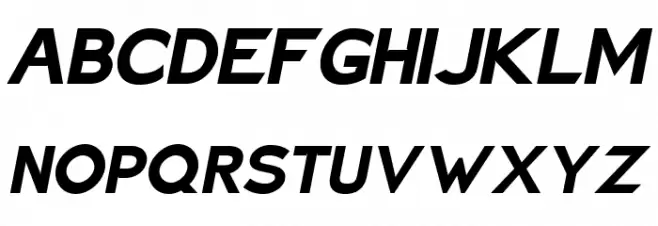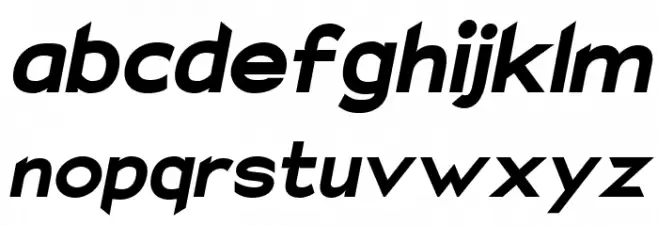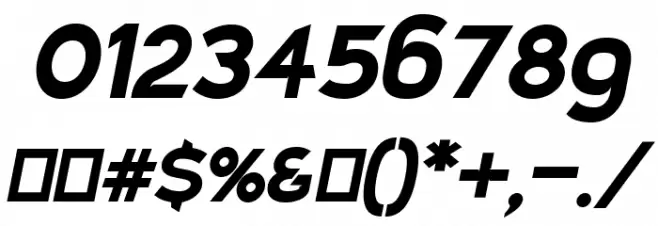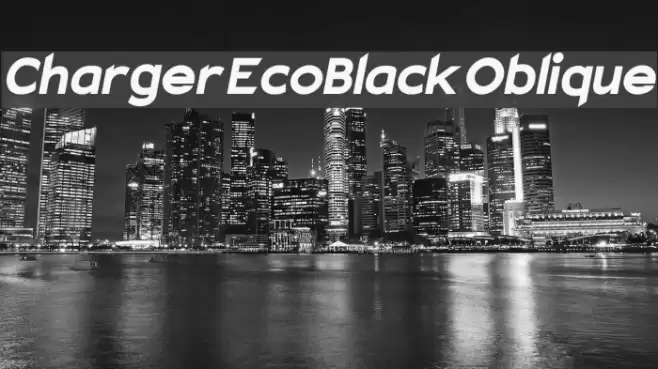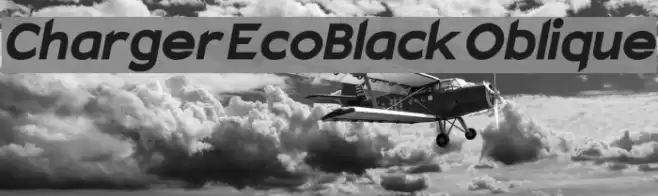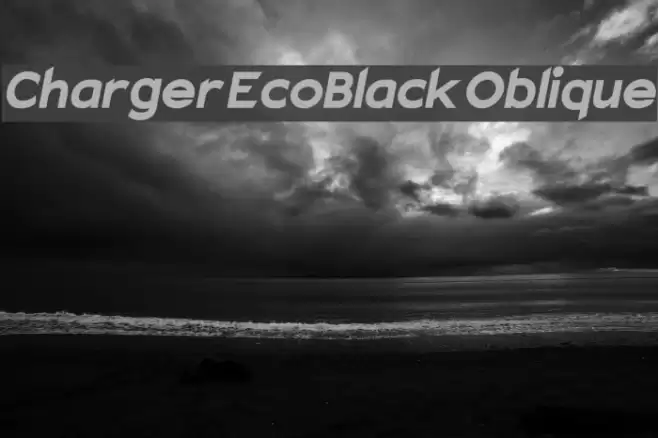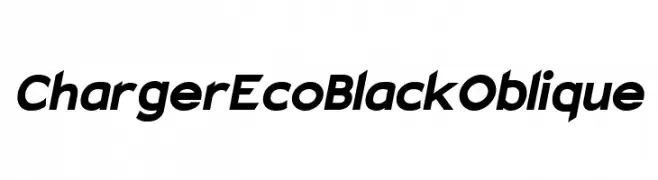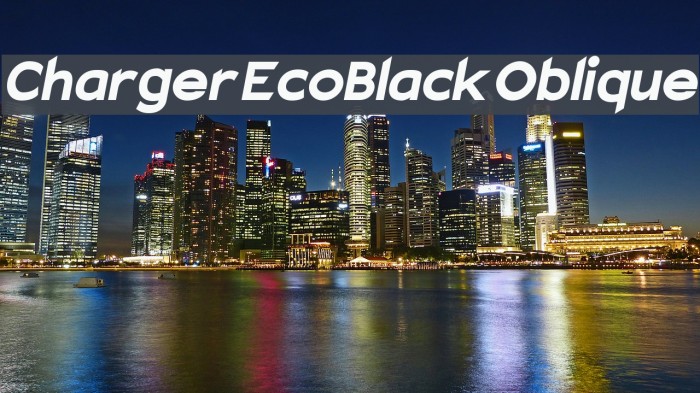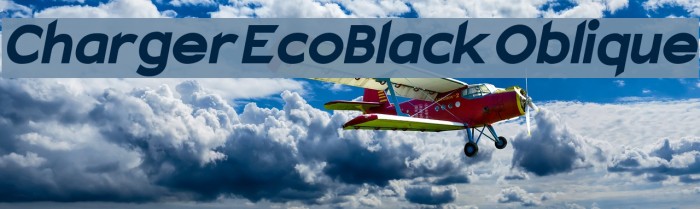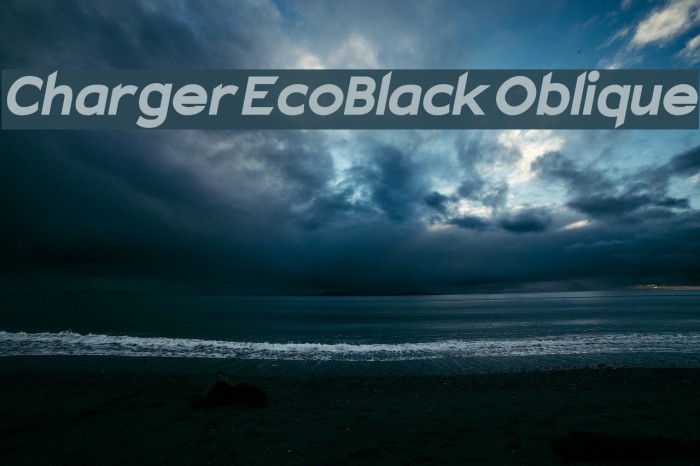
Charger EcoBlack Oblique
This font features a bold and dynamic design with a distinct oblique slant, giving it a sense of motion and energy. The characters are thick and robust, providing a strong visual impact. The uppercase and lowercase letters maintain a consistent style, with sharp angles and clean lines that enhance readability. The numerals are equally bold, ensuring they stand out in any context. Special characters are well-integrated, maintaining the overall aesthetic. This font's modern and assertive appearance makes it suitable for a variety of applications.
A bold, oblique font with a dynamic and modern style.
- Proposed Projects: Ideal for branding, advertising, sports team logos, and dynamic headlines.
- Use Case: Headlines, Logos, Branding